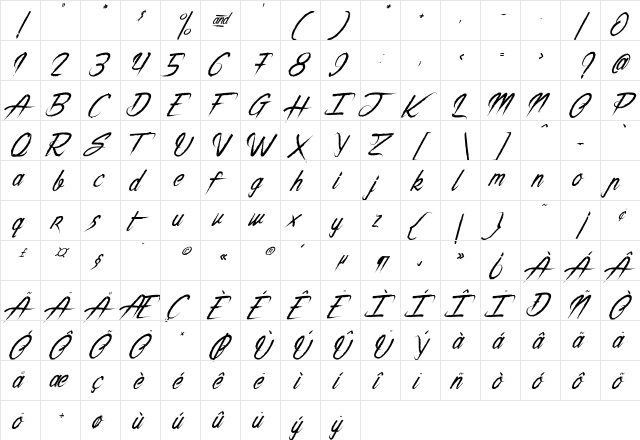
The Night Creatures Regular
Design Context for The Night Creatures Typeface
The Night Creatures is a composed and adaptable typeface that performs quietly and consistently across a wide range of design contexts.